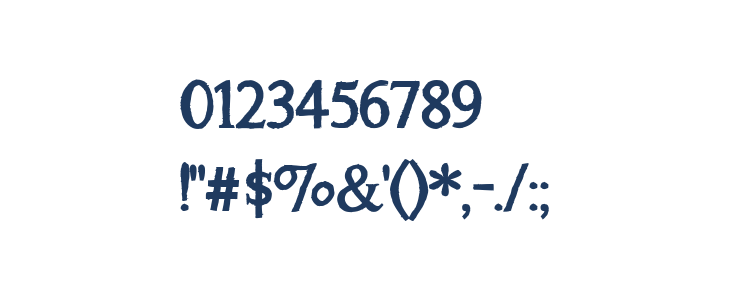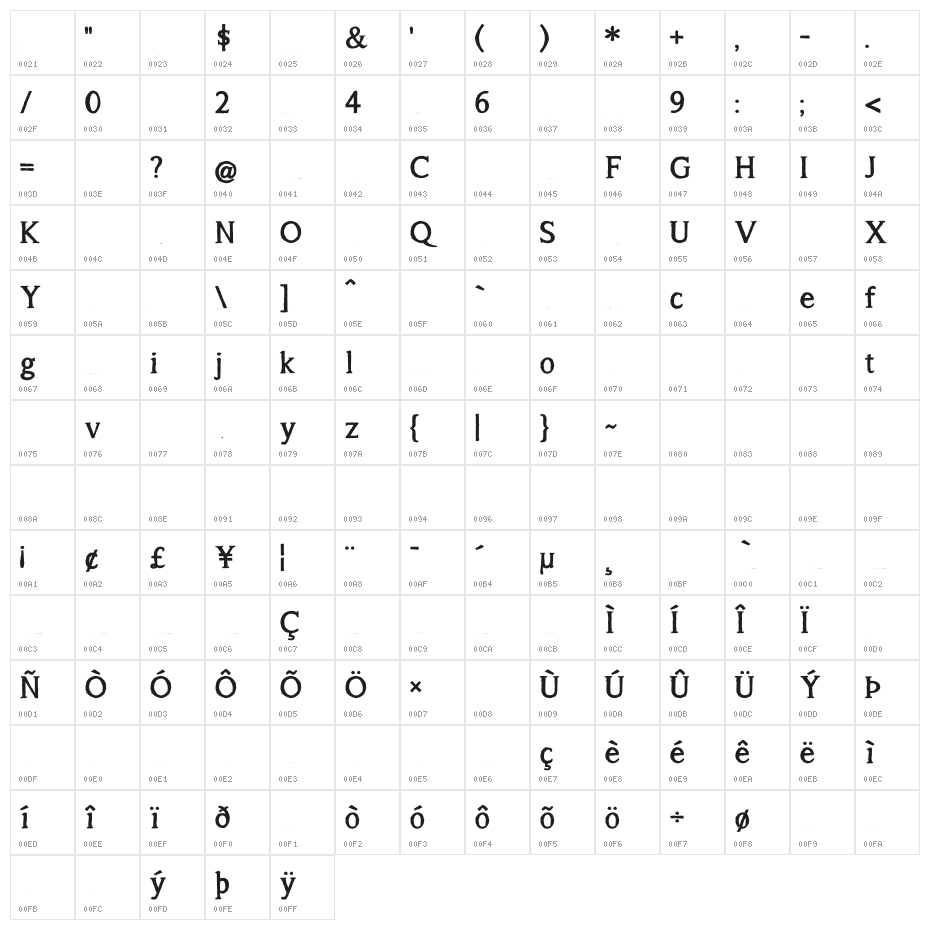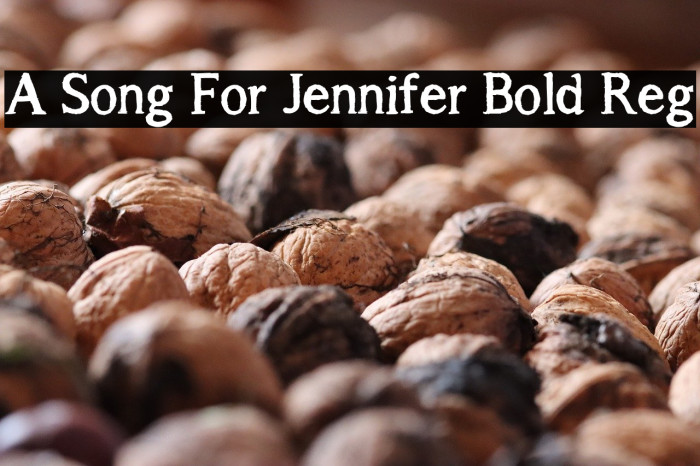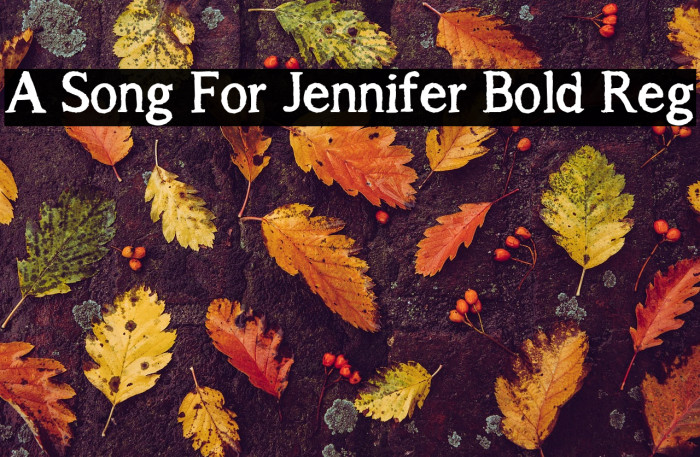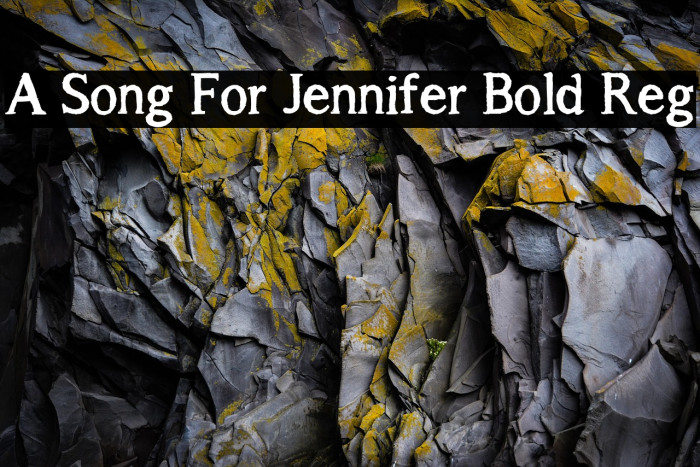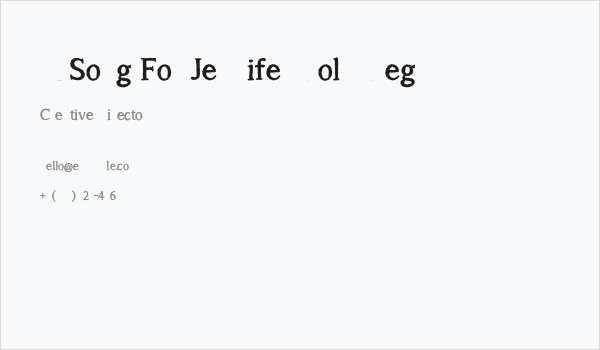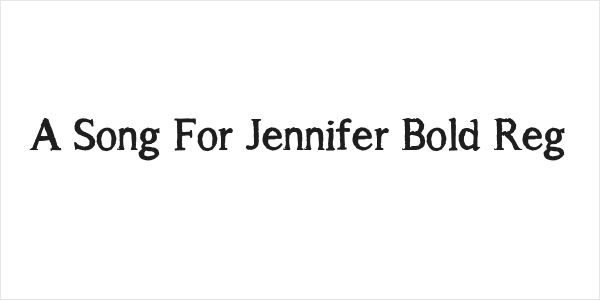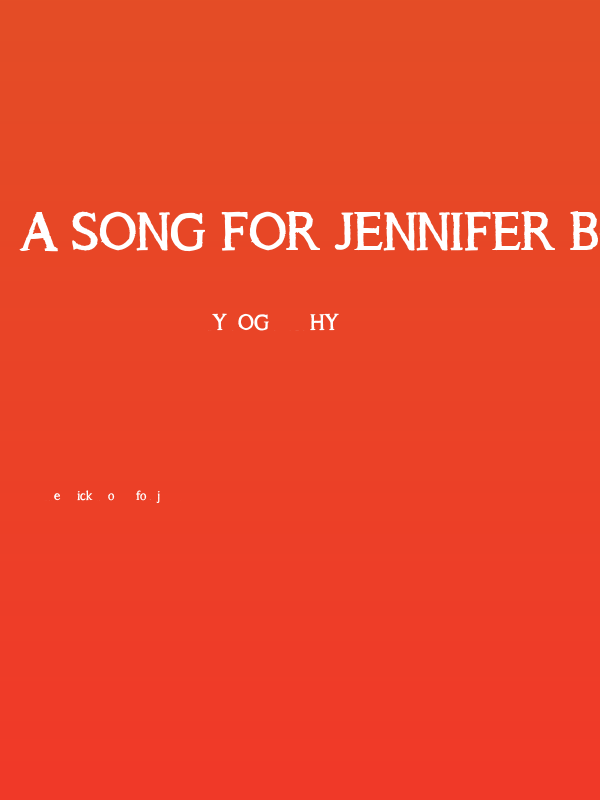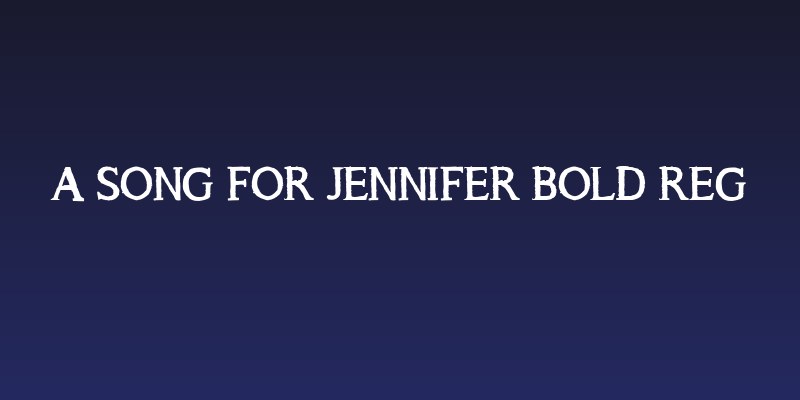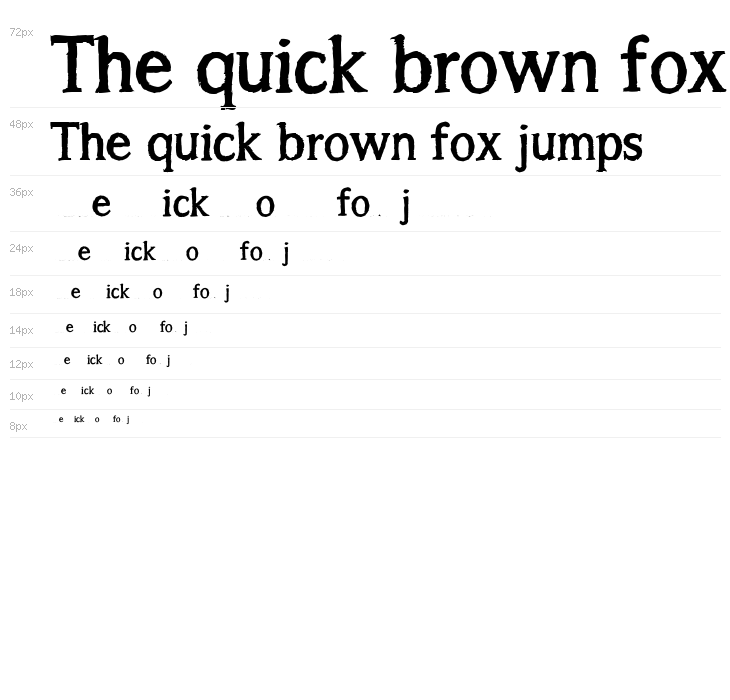
A Song For Jennifer Bold Reg Font
A Song For Jennifer Bold Reg Description
This font features a bold and slightly distressed appearance, giving it a hand-crafted and organic feel. The uppercase letters are robust with a slight serif, while the lowercase letters maintain a consistent style that complements the uppercase. The numbers are clear and bold, ensuring readability. Special characters are well-integrated, maintaining the overall aesthetic. The font's texture adds a unique character, making it suitable for projects that require a rustic or vintage touch.
| Proposed Projects | Ideal for vintage-themed designs, posters, book covers, and branding that requires a rustic or artisanal touch. |